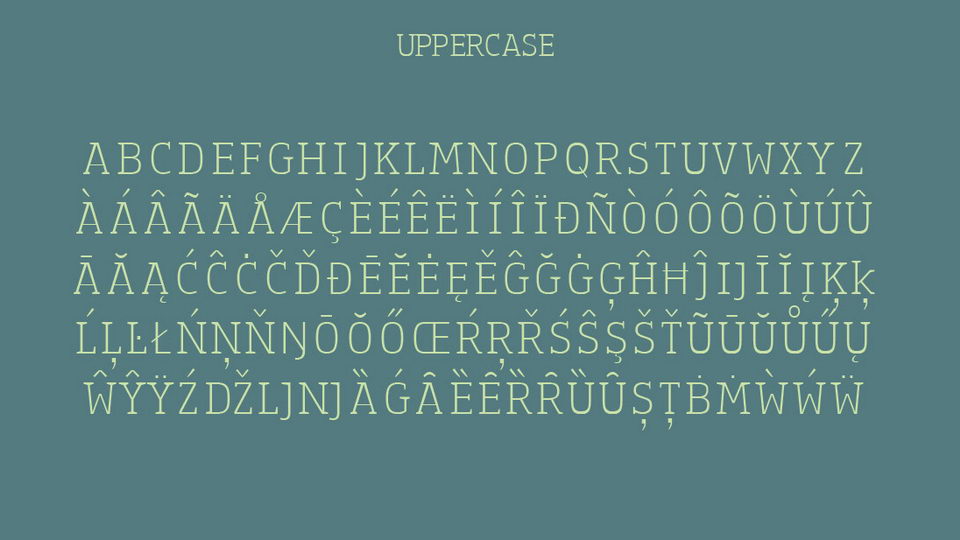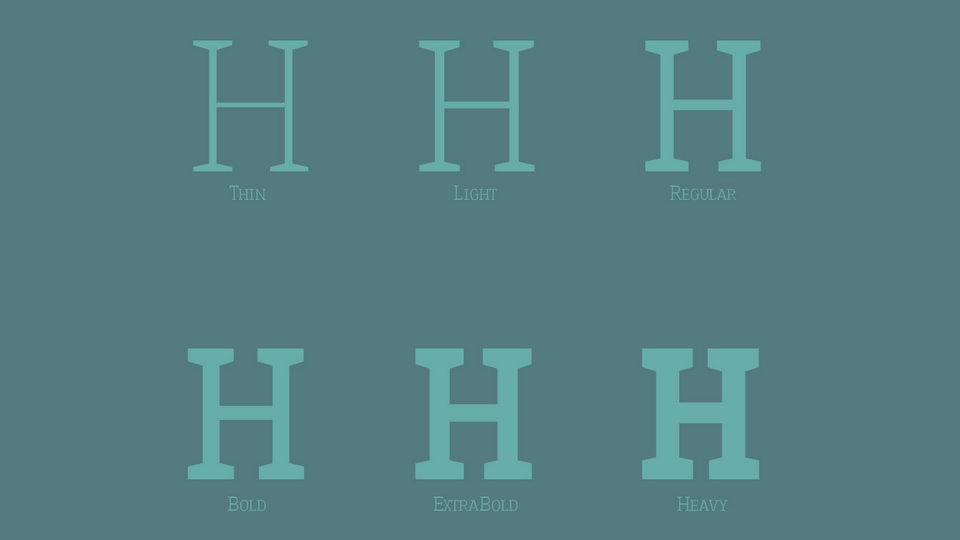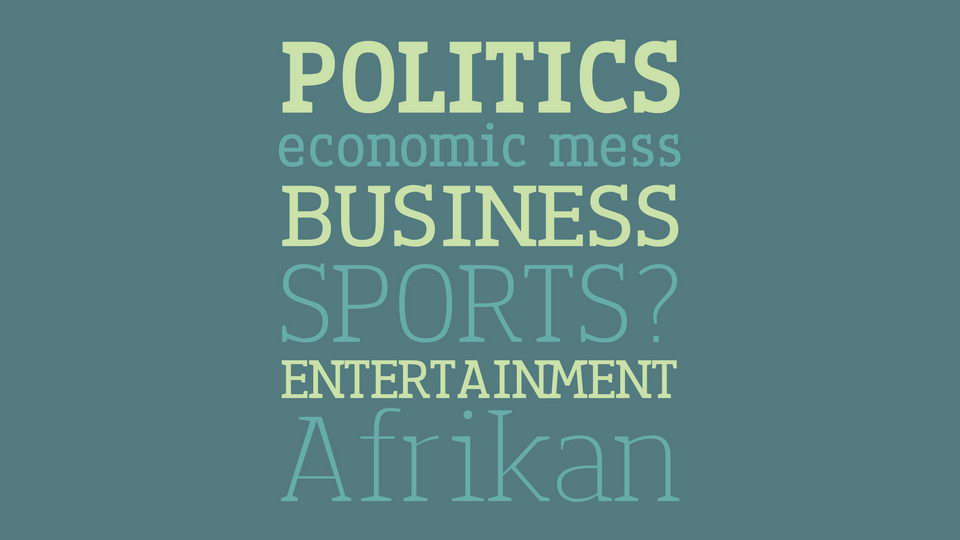
Luimp Serif Font
Introducing our New Font, very suitable as to make adorable invitation for wedding, birthday, special day. A collection of letters and numbers suitable your projects also great for Logotype, Branding Design, Logo Design, Digital Lettering Arts, T-Shirt/Apparel, Poster, Magazine, Signs, Advertising Design, and also perfect for your other projects branding.